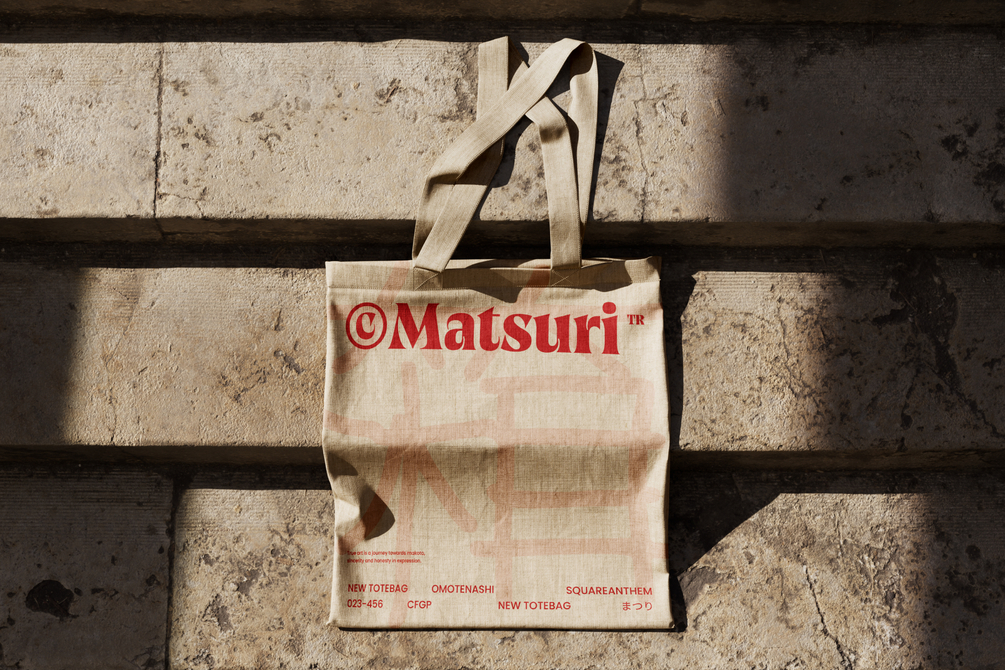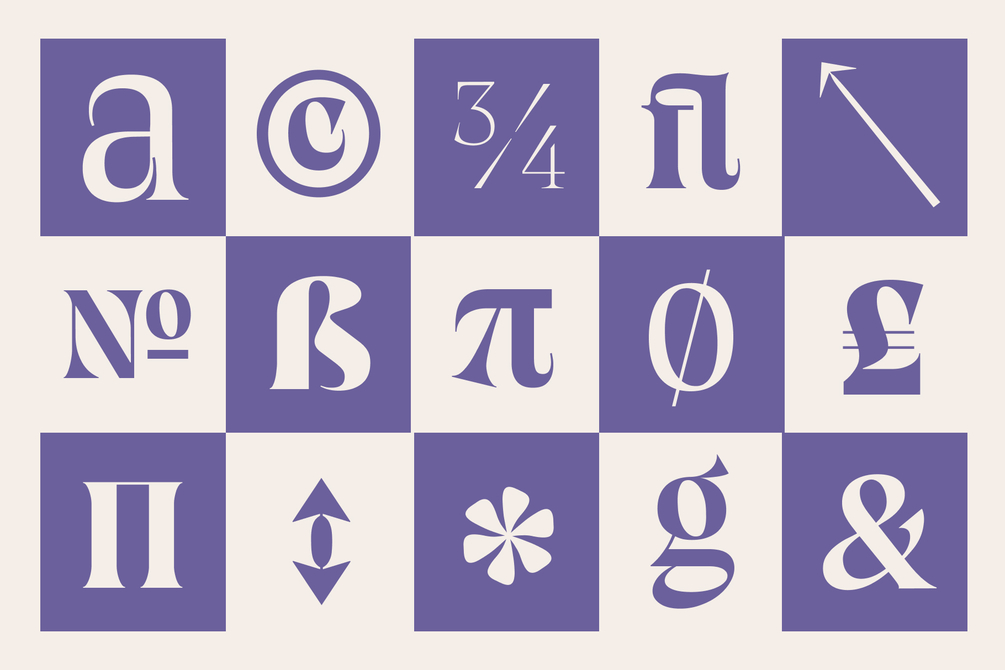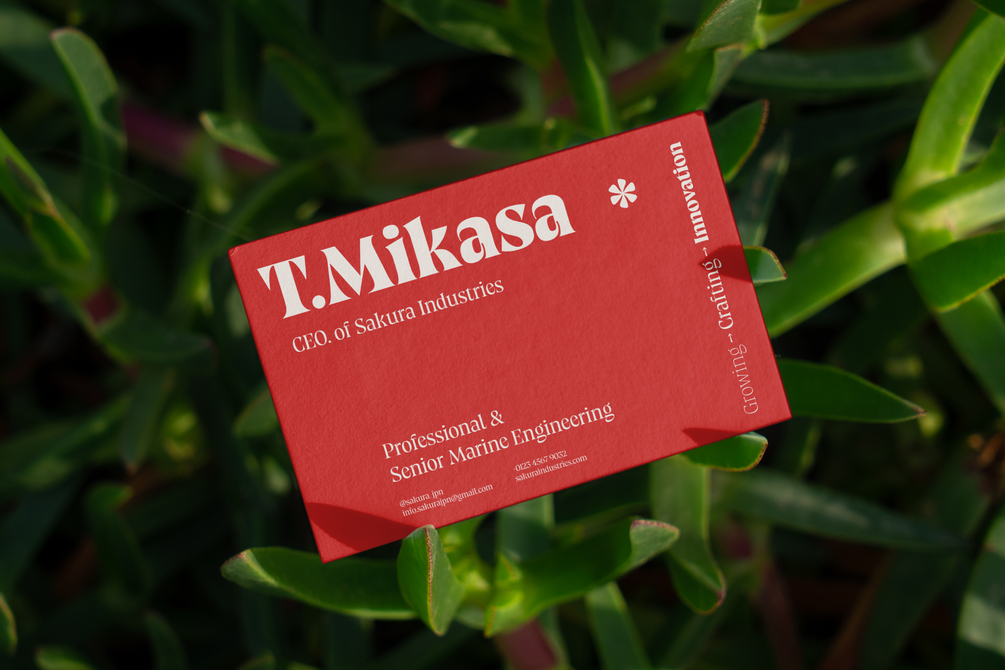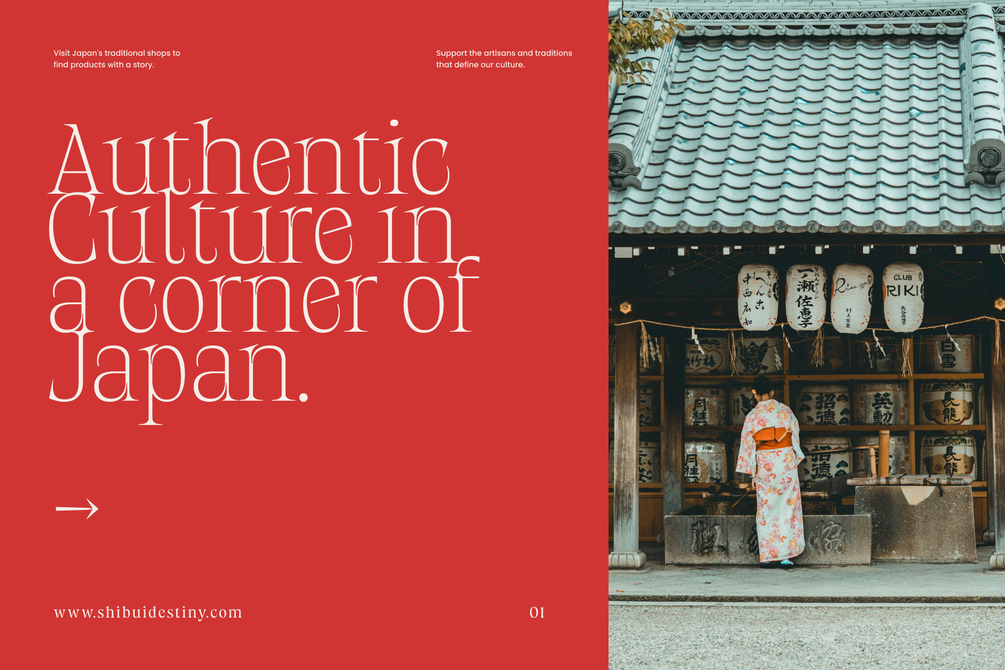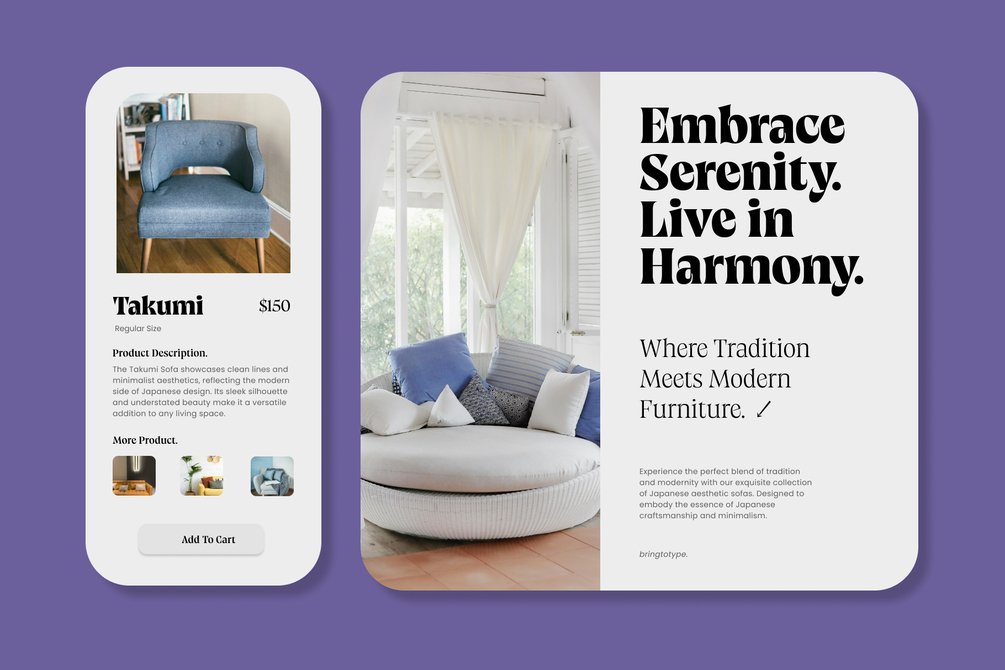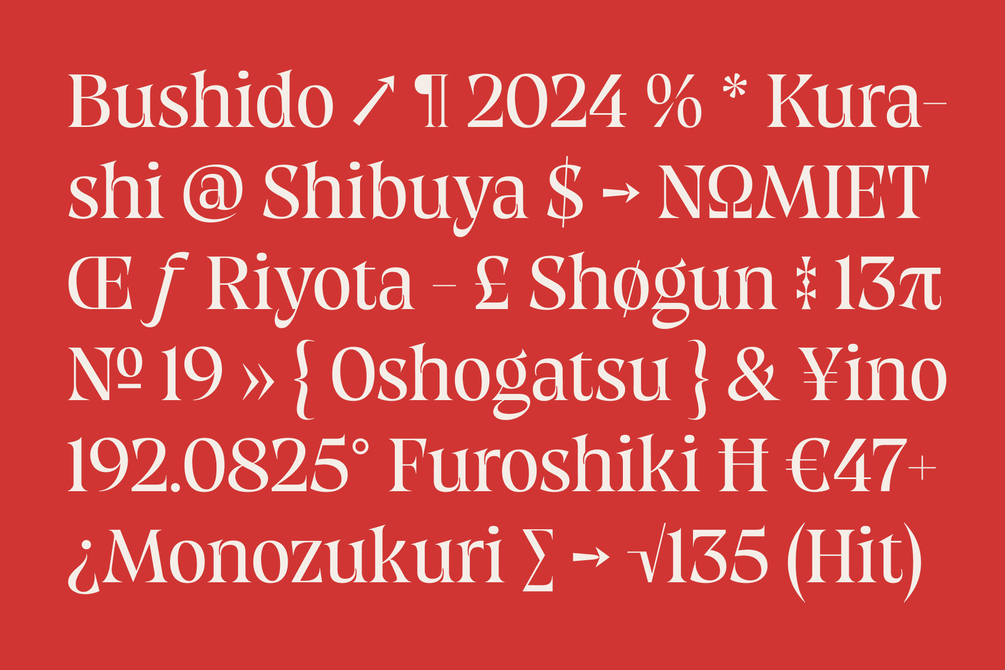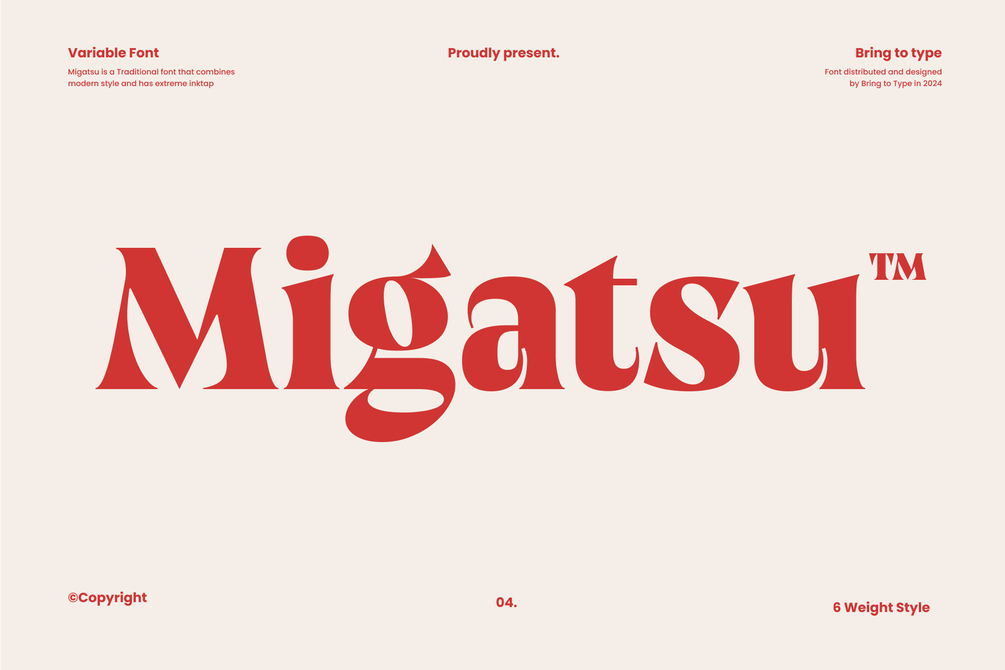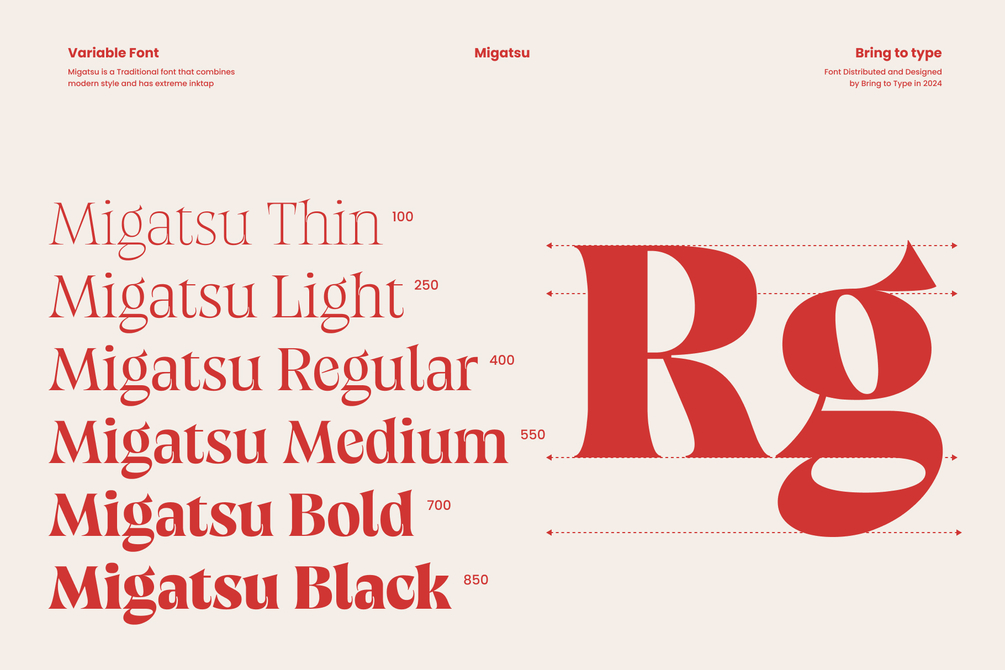
Migatsu - Display Serif Font
Migatsu showcases a blend of traditional serif features with modern, bold characteristics. The strokes are bold and dramatic, especially in the terminal sections, which enhance the visual impact of the font and have extreme inktrap.
• 6 Weight Style